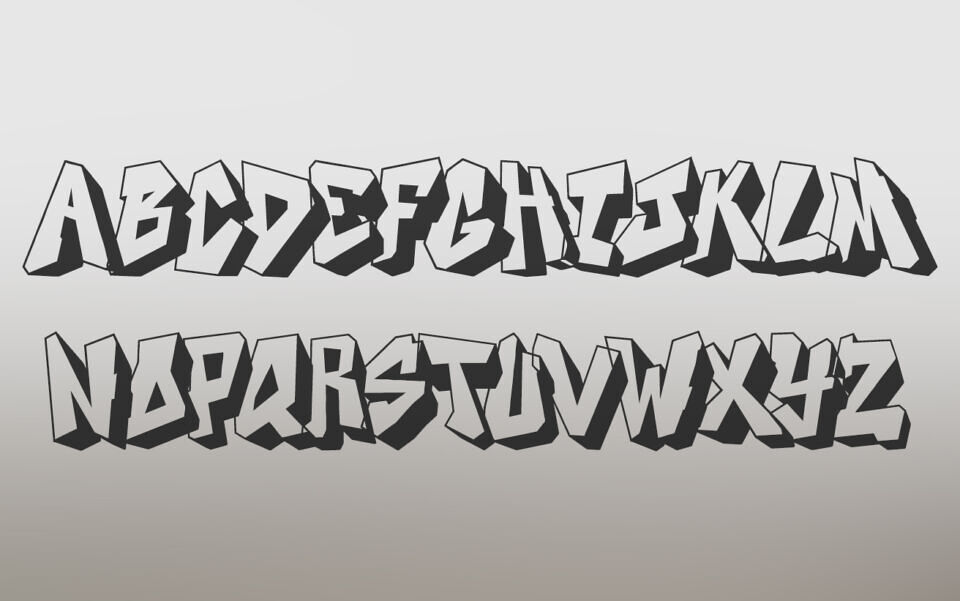
Docallisme On Street Font is a gritty, urban-inspired typeface with a bold, 3D graffiti style. Its chunky, angular letters feature sharp edges and dramatic shadows, giving a sense of depth and streetwise attitude. Perfect for posters, streetwear branding, or music album covers, this font captures the raw energy of city life. The Docallisme On Street Font brings an authentic, rebellious vibe to any design, making your text pop with a modern, underground aesthetic that resonates with the spirit of the streets.